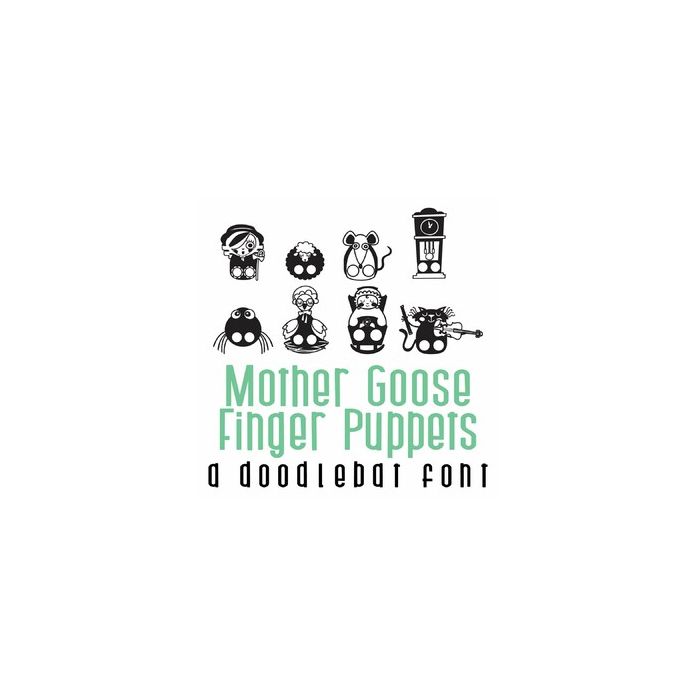
This fun doodlebat font features 26 mother goose themed finger puppets. Perfect for cards, gifts, decor, crafts, scrap book pages, planner stickers and more!